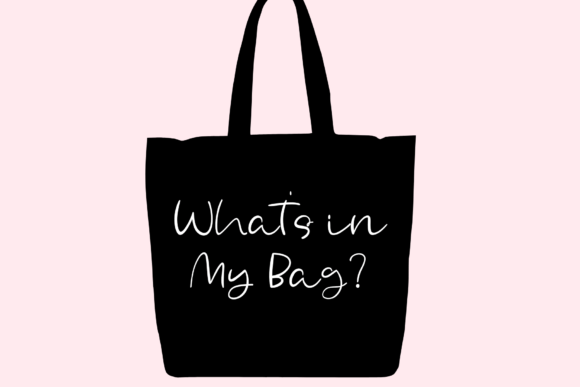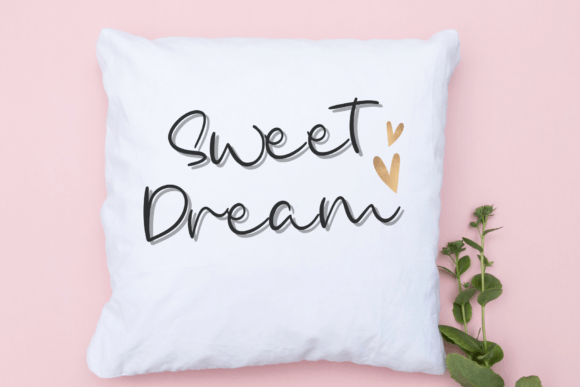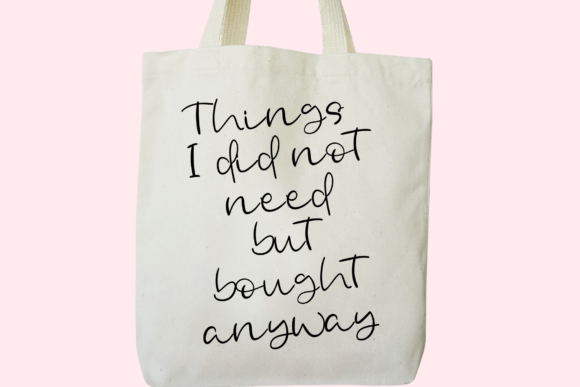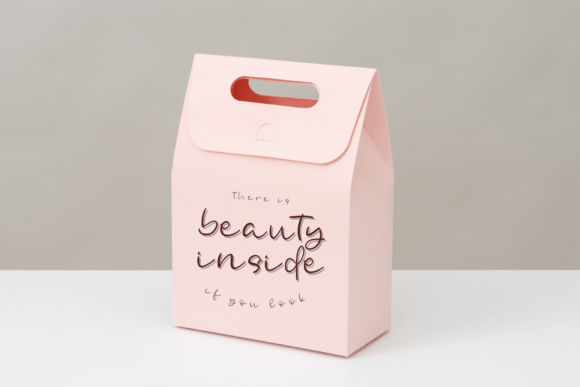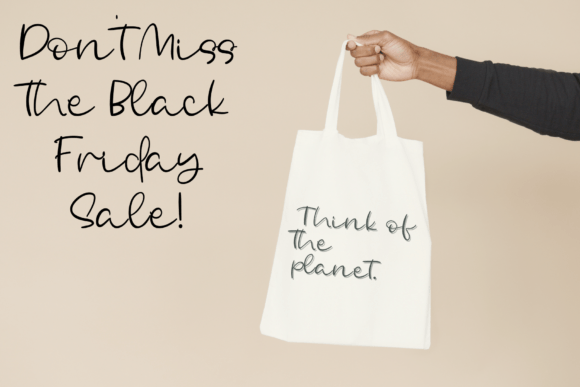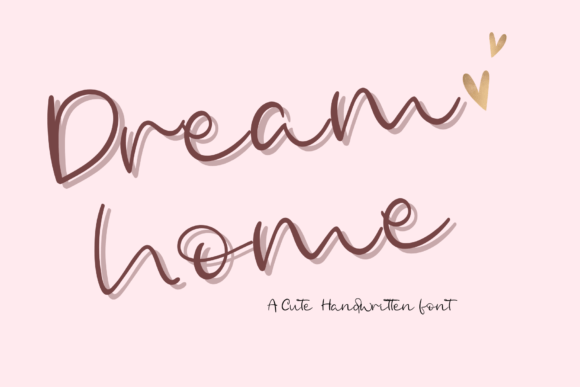
Dream Home Font: Elevate Your Designs with a Touch of Elegance
Are you a designer or crafter looking for a font that can add a touch of elegance and class to your projects? Look no further than the Dream Home font, a cute and friendly handwritten font that’s perfect for a wide range of design applications. In this article, we’ll take a closer look at the Dream Home font, its features, and how you can use it to take your designs to the next level.
What is Dream Home Font?
Dream Home is a beautiful, handwritten font that’s designed to add a touch of warmth and personality to your designs. With its elegant and cursive style, this font is perfect for creating stunning designs that stand out from the crowd. Whether you’re working on a logo, wedding design, or any other project, Dream Home font is sure to impress.
Key Features of Dream Home Font
So, what makes Dream Home font so special? Here are some of its key features:
- Cute and Friendly: Dream Home font has a playful and friendly vibe that’s perfect for creating designs that are approachable and inviting.
- Elegant and Classy: With its elegant and cursive style, Dream Home font adds a touch of sophistication and class to any design.
- Versatile: This font can be used for a wide range of design projects, including logos, wedding designs, and any other project that requires a personal touch.
- Easy to Read: Dream Home font is clear and easy to read, making it perfect for body text and headlines.
How to Use Dream Home Font
So, how can you use Dream Home font in your designs? Here are some ideas to get you started:
- Logos: Use Dream Home font to create stunning logos that reflect your brand’s personality and style.
- Wedding Designs: Add a touch of elegance and romance to your wedding designs with Dream Home font.
- Product Packaging: Use Dream Home font to create eye-catching product packaging that stands out on store shelves.
- Social Media Graphics: Create stunning social media graphics with Dream Home font that reflect your brand’s personality and style.
Benefits of Using Dream Home Font
So, why should you choose Dream Home font for your designs? Here are some benefits of using this amazing font:
- Unique and Creative: Dream Home font is a unique and creative way to add personality and style to your designs.
- Elegant and Sophisticated: This font adds a touch of elegance and sophistication to any design, making it perfect for high-end brands and luxury products.
Tips for Using Dream Home Font
Here are some tips for using Dream Home font in your designs:
- Use it Sparingly: Use Dream Home font sparingly to create a focal point in your design.
- Experiment with Colors: Experiment with different colors to find the perfect combination that works with your brand.
- Pair it with Other Fonts: Pair Dream Home font with other fonts to create a unique and creative design.
In conclusion, Dream Home font is a beautiful and elegant handwritten font that’s perfect for designers and crafters looking to add a touch of personality and style to their designs. With its cute and friendly vibe, elegant and cursive style, and versatility, this font is sure to impress. Whether you’re working on a logo, wedding design, or any other project, Dream Home font is a great choice. So why wait? Download Dream Home font today and take your designs to the next level!